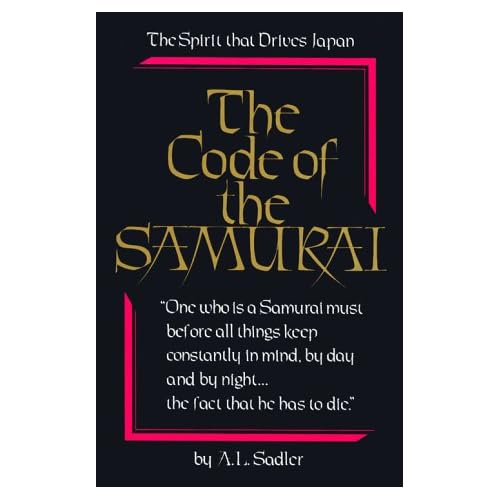
The ‘e’ in Adieu Two Pro looks spot on. Other characters are slightly off, though. Might be customized, or a different version:
AdieuTwo is a radical revision of Adieu which was a revision of my original font, Chivalry, that was traced from Chevalier back in the mid-1990s. — David Bergsland @ MyFonts
It looks similar, but the lowercase e is different...
The ‘e’ in Adieu Two Pro looks spot on. Other characters are slightly off, though. Might be customized, or a different version:
AdieuTwo is a radical revision of Adieu which was a revision of my original font, Chivalry, that was traced from Chevalier back in the mid-1990s. — David Bergsland @ MyFonts
It looks very similar, but I think I found it. It was called Blarney from buyfonts.com
Good sleuthing! Looks like it.
Stiletto is another version of this typeface.